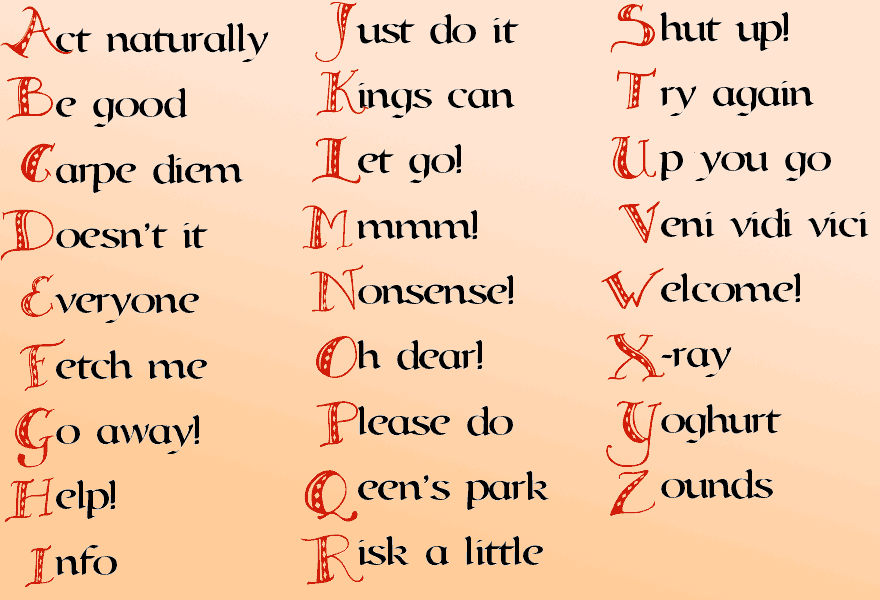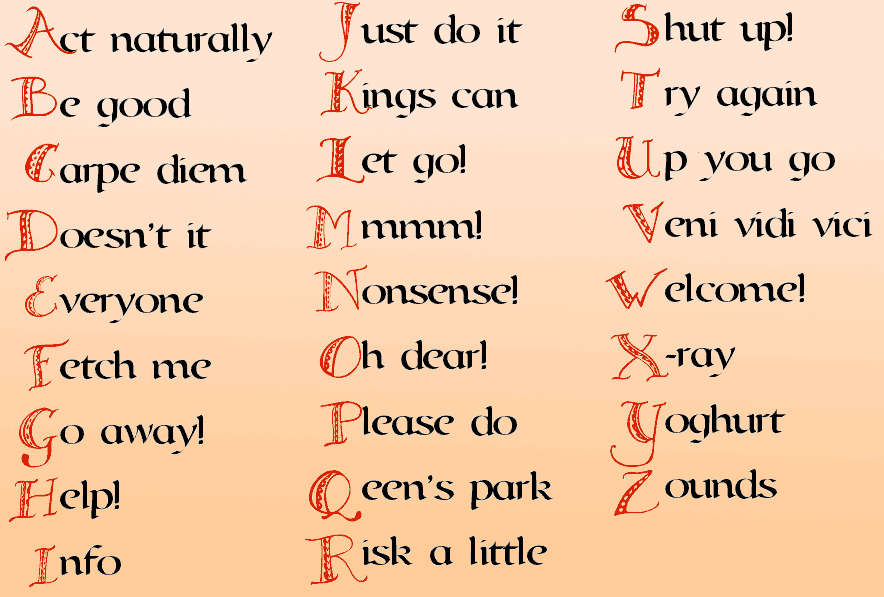
Karin's Lombardy Capitals are a free and living reinterpretation of the impressions gained from many hours spent reading and singing from mediaeval and renaissance manuscripts.